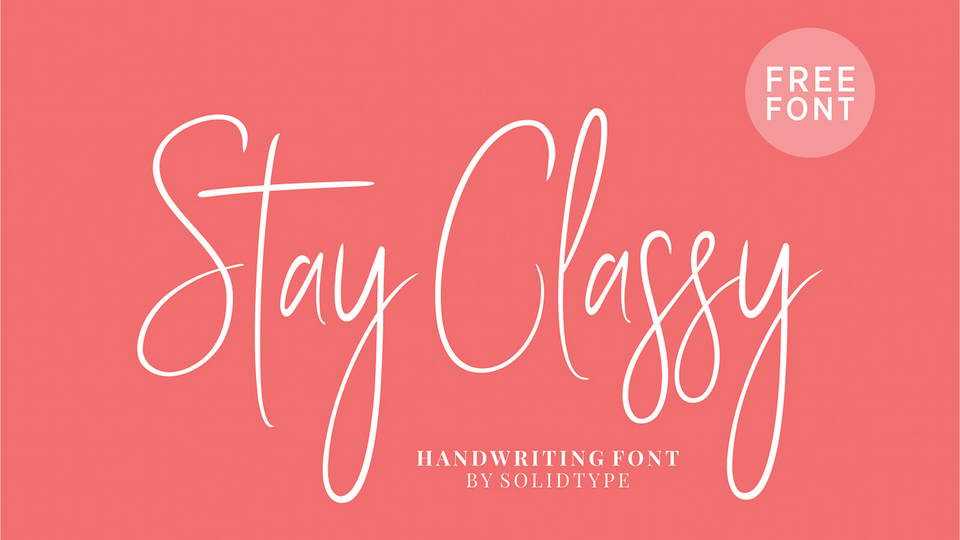
Download Stay Classy font, a stylish contemporary typeface with fashionable and elegant script style. Stay Classy font will perfect for many different project for blogging, social media, branding, wedding invites, cards etc.
Designer: Solidtype